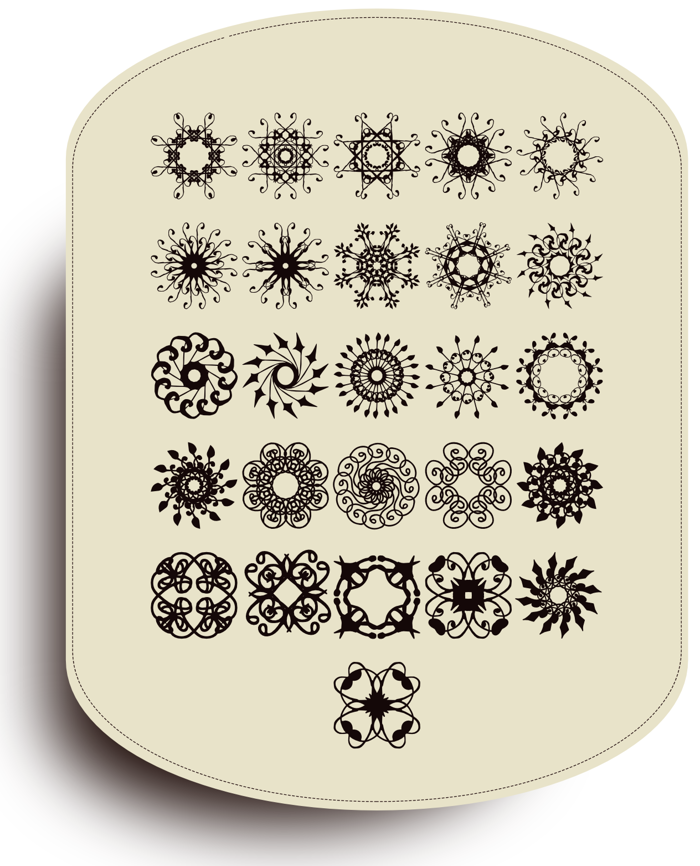
Rosette110621 Font
Rosette110621© - fantasy dingbats , vol.2 - (to be used in layouts instead of a photoshop brush)
~ all glyphs are under keys a-z (lower case) ~
This is just what I was looking for! Absolutely beautiful!
Gorgeous shapes, looking forward to using them. Thank you
Used to draw figures similar to these when I was bored in school ;)
But yours are simply gorgeous!